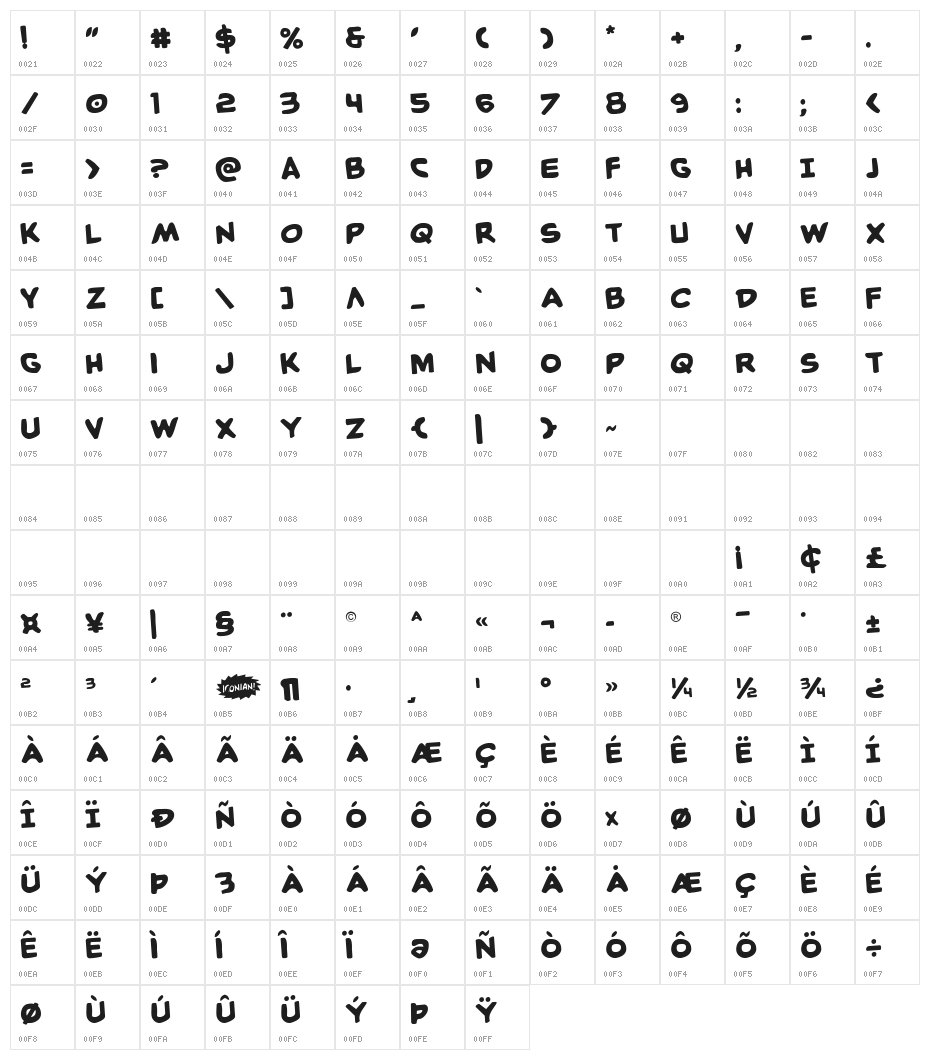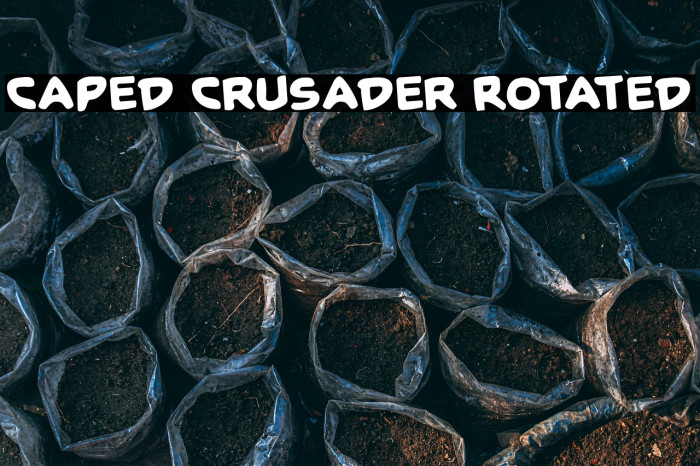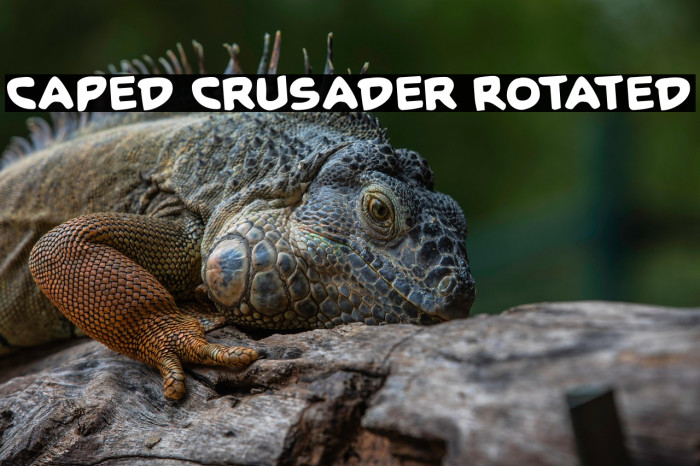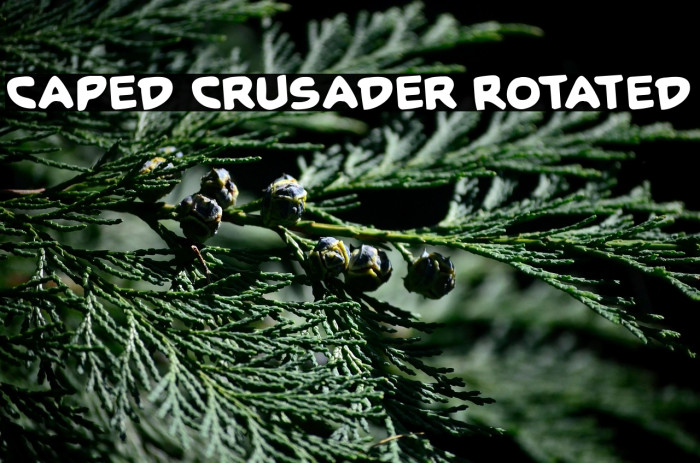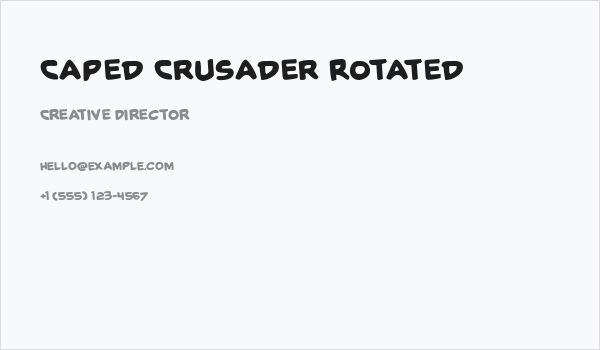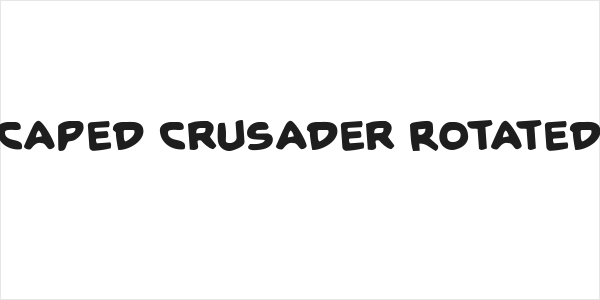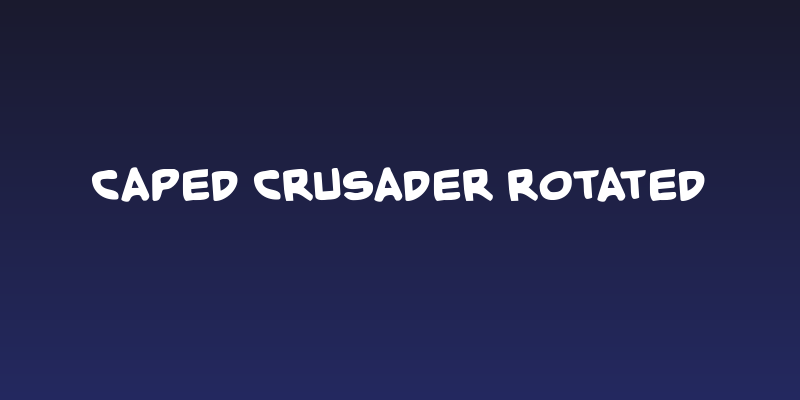
Caped Crusader Rotated Font
Caped Crusader Rotated Description
This font features a bold and playful style with rounded edges and a slightly irregular baseline, giving it a dynamic and energetic appearance. The characters are thick and substantial, providing a strong visual impact. The uppercase and lowercase letters maintain a consistent weight, while the numbers and special characters complement the overall design with their bold and quirky shapes. The font's informal and lively nature makes it suitable for projects that require a fun and engaging look.
| Proposed Projects | Ideal for comic books, children's books, playful branding, and eye-catching posters. |